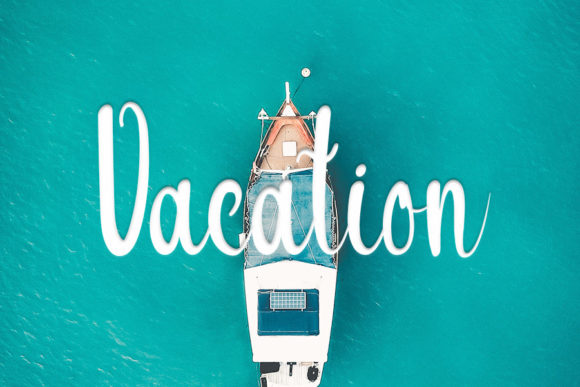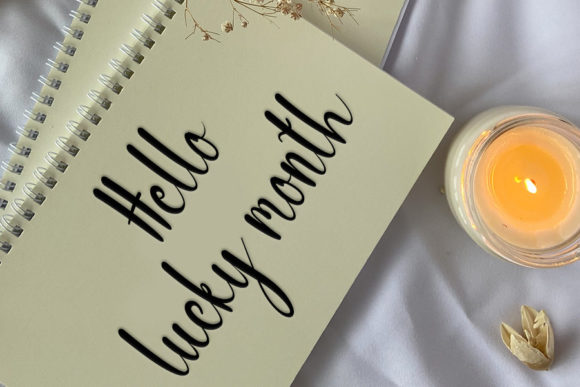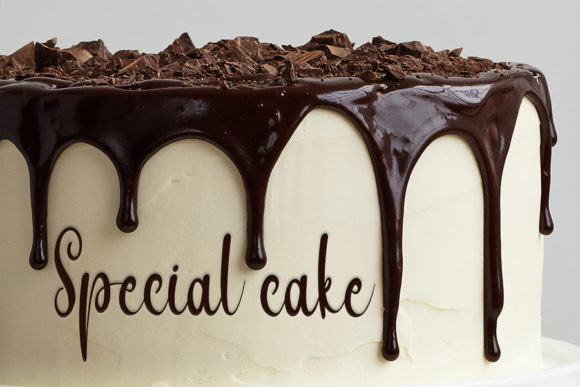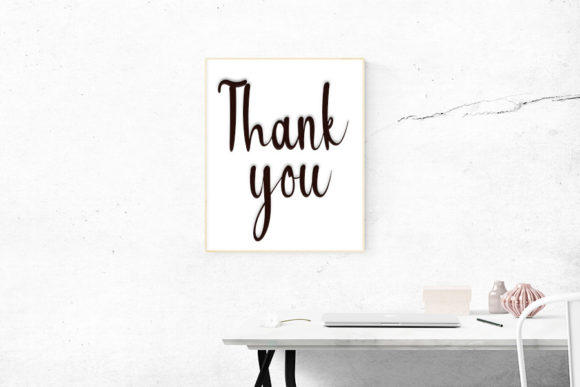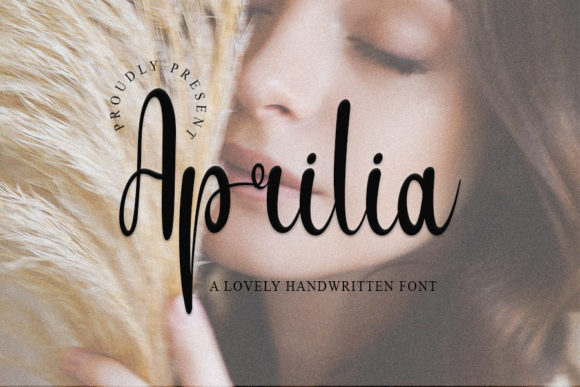
The Ultimate Guide to Aprilia Font: A Playful and Smart-Looking Handwritten Font
I’ll never forget the time I was working on a branding project for a trendy new coffee shop. My client wanted a logo that was both modern and elegant, but I was struggling to find the perfect font. That was until I stumbled upon Aprilia Font – a playful and smart-looking handwritten font that instantly caught my eye. In this article, I’ll share my experience with Aprilia Font, its features, and how to make the most of it in your designs.
What Makes Aprilia Font Special?
Aprilia Font is a unique and beautiful handwritten font that’s perfect for creating eye-catching logos, branding, and quotes. Every letter has a unique touch that will make your design come alive! Here are some of the things I love about Aprilia Font:
- ✨ Playful and elegant: Aprilia Font has a perfect balance of playfulness and elegance, making it suitable for a wide range of design projects.
- ✅ Unique letterforms: Each letter has a distinct and beautiful touch that sets it apart from other fonts.
- 💫 Highly versatile: Aprilia Font can be used for logos, branding, quotes, and more.
While Aprilia Font is an amazing font, it’s not without its quirks. Here are some things I love and a few limitations to keep in mind:
- ✨ Beautiful swashes: Aprilia Font comes with beautiful swashes that can add a touch of elegance to your designs.
- ✅ Easy to read: Despite its playful nature, Aprilia Font is surprisingly easy to read, even at smaller sizes.
- 🤔 Limited use in formal contexts: While Aprilia Font is versatile, it may not be the best choice for formal or corporate designs.
- ⚠️ Some letters may require manual kerning: As with any font, some letters may require manual kerning to achieve optimal results.
The Backstory Behind Aprilia Font
Aprilia Font was designed by a talented type designer who wanted to create a font that was both playful and elegant. Inspired by the beauty of handwritten letters, the designer poured their heart and soul into creating a font that would bring joy to designers and readers alike. While the designer’s story is fictional, the font’s beauty and versatility are very real.
Q: What is Aprilia Font?
Aprilia Font is a playful and smart-looking handwritten font designed for creating eye-catching logos, branding, and quotes.
Q: Is Aprilia Font suitable for formal designs?
While Aprilia Font is versatile, it may not be the best choice for formal or corporate designs. It’s better suited for creative or playful projects.